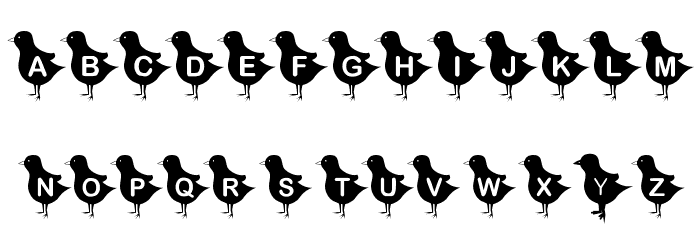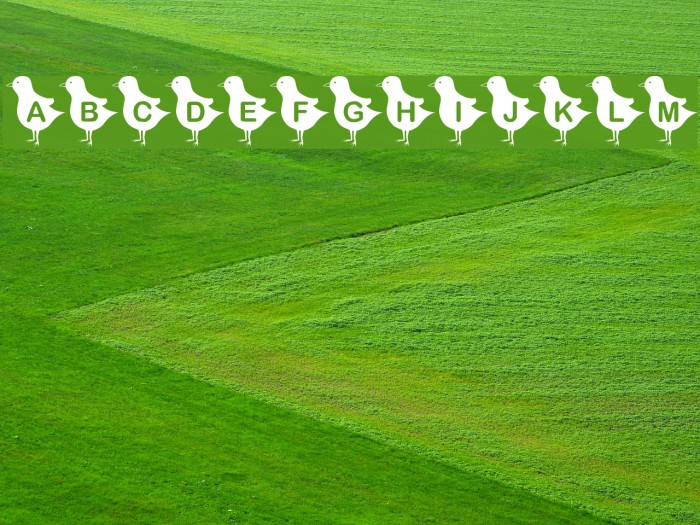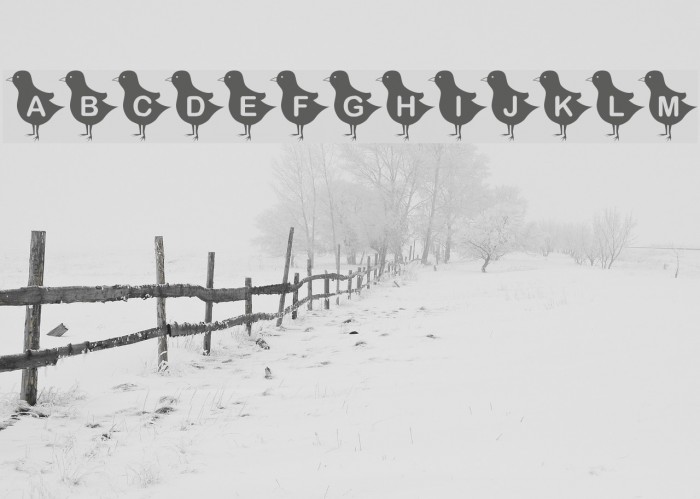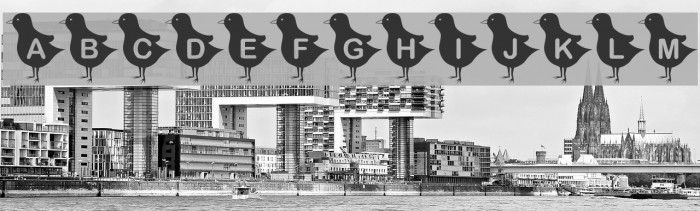
KR Blackbird Font
KR Blackbird Description
This playful and whimsical font features each letter encased within a silhouette of a blackbird. The design is highly decorative, with each character seamlessly integrated into the shape of the bird, creating a unique and eye-catching effect. The letters are bold and clear, ensuring readability despite the intricate design. This font is perfect for projects that require a touch of fun and creativity, such as children's books, playful branding, or themed event invitations. The overall style is decorative and imaginative, making it stand out in any design context.
A whimsical font with letters encased in blackbird silhouettes, perfect for playful designs from Uncategorized fonts.
- Proposed Projects: Children's books, playful branding, themed event invitations, creative posters.